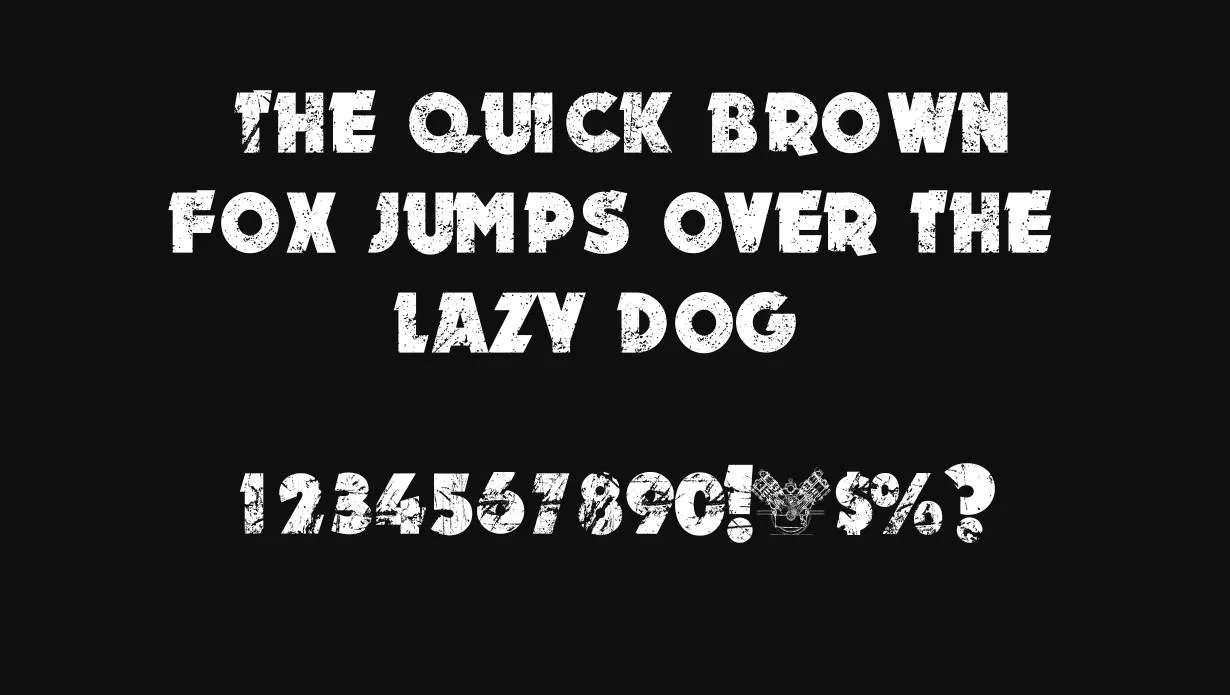
The bold and powerful aesthetics of machinery and motors inspire motor Font. With its strong and sturdy letters, this font is perfect for projects that want to convey a sense of robustness and reliability. Use it for posters, banners, or any design where a touch of industrial strength is desired.
The font’s technical details include a heavyweight and medium width, creating an overall appearance that exudes a powerful and mechanical vibe.
Motor Font is crafted for projects that want to make a bold and impactful statement, adding a sense of strength to their designs.